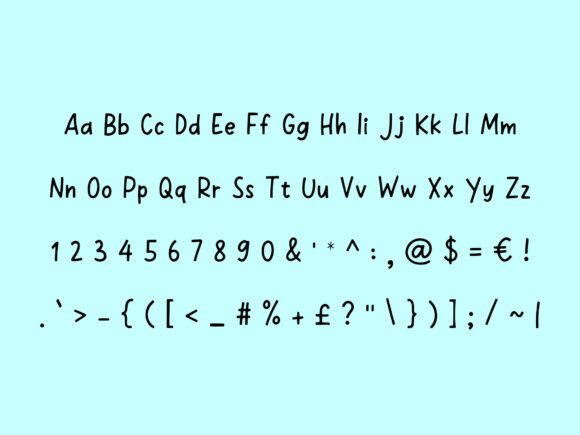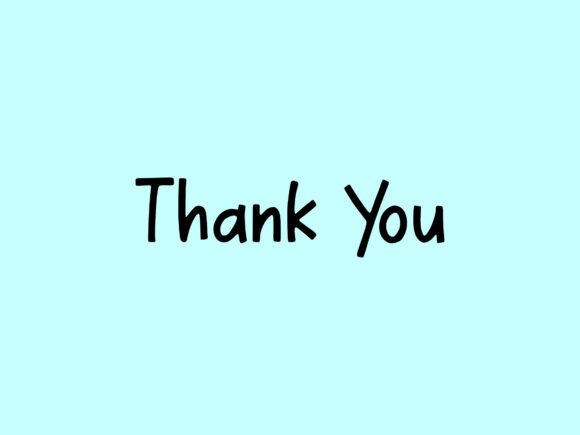
Introducing Cheerful Scribbles Font: Add a Dash of Whimsy to Your Designs!
Are you tired of using the same old fonts in your designs? Look no further! Cheerful Scribbles is a fun and quirky handwritten typeface that’s sure to add a dash of whimsy to your projects. With its doodle-like charm, this font is perfect for kids’ projects, greeting cards, invitations, logos, and DIY crafts. In this article, we’ll dive into the features and benefits of Cheerful Scribbles Font and explore how you can use it to take your designs to the next level.
The Charm of Cheerful Scribbles Font
Cheerful Scribbles Font is a handwritten typeface that’s designed to bring a smile to your face. Its bouncy and casual style is reminiscent of doodles and scribbles, making it perfect for designs that need a playful touch. The font’s quirky charm is sure to capture the attention of your audience and add a unique personality to your designs.
Perfect for Kids’ Projects and DIY Crafts
Cheerful Scribbles Font is a great choice for kids’ projects, such as party invitations, coloring pages, and craft projects. The font’s playful style is sure to delight kids and add a fun touch to any project. Additionally, the font is perfect for DIY crafts, such as handmade cards, gift tags, and scrapbooking. With Cheerful Scribbles Font, you can add a personal touch to your crafts and make them stand out.
Use it for Greeting Cards and Invitations
Cheerful Scribbles Font is also perfect for creating greeting cards and invitations. The font’s cheerful style is sure to set the tone for any occasion, whether it’s a birthday, wedding, or holiday. You can use the font to create custom greeting cards, invitations, and thank-you cards that will make your loved ones feel special.
Great for Logos and Branding
Cheerful Scribbles Font is not just limited to personal projects. The font can also be used for logos and branding. The font’s unique style can help you create a memorable and recognizable brand identity that will stand out from the crowd. Whether you’re starting a new business or rebranding an existing one, Cheerful Scribbles Font is a great choice.
Tips for Using Cheerful Scribbles Font
Here are some tips for using Cheerful Scribbles Font in your designs:
- Use the font in combination with other fonts to create a unique and interesting design.
- Use the font to create custom graphics, such as illustrations and icons.
- Don’t be afraid to get creative and try new things – Cheerful Scribbles Font is all about having fun!
Cheerful Scribbles Font is a fun and quirky handwritten typeface that’s perfect for adding a dash of whimsy to your designs. With its doodle-like charm and bouncy style, this font is sure to capture the attention of your audience and add a unique personality to your projects. Whether you’re working on kids’ projects, greeting cards, logos, or DIY crafts, Cheerful Scribbles Font is a great choice. So why not give it a try and see how it can take your designs to the next level?